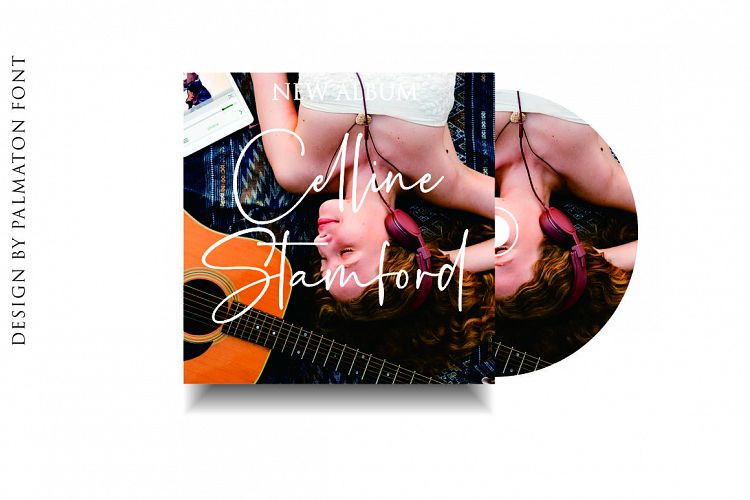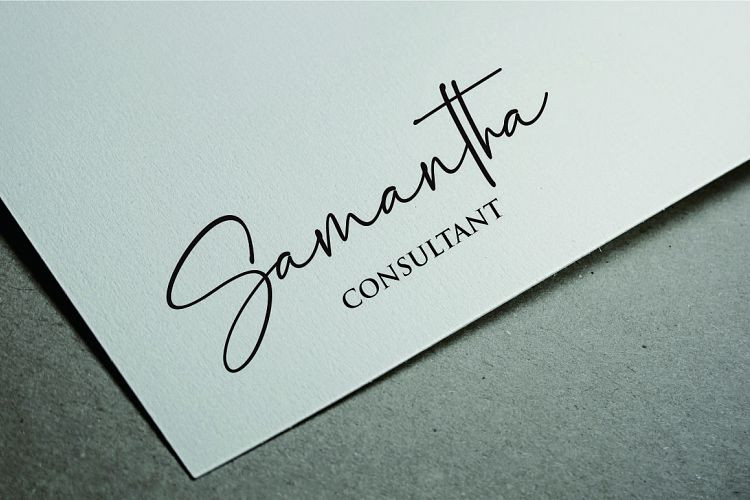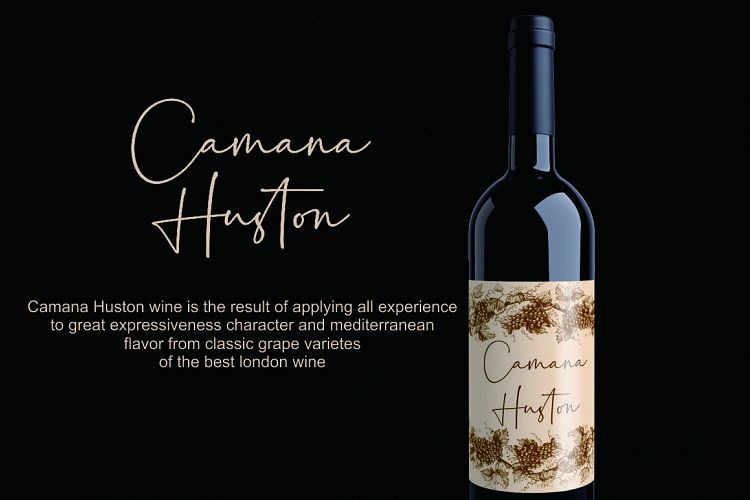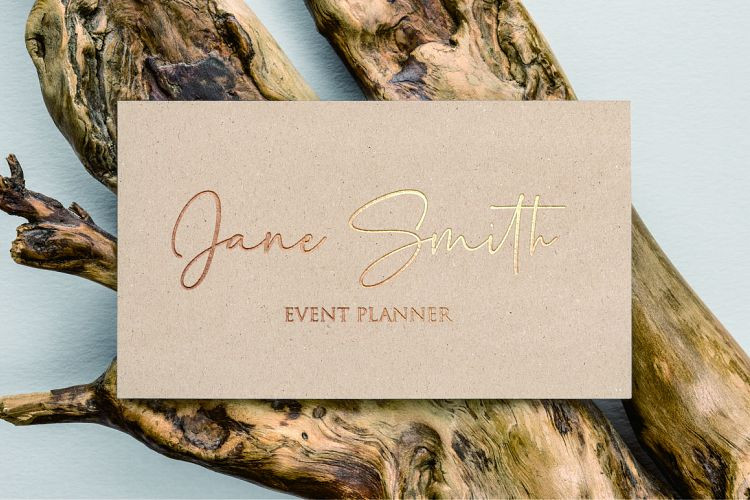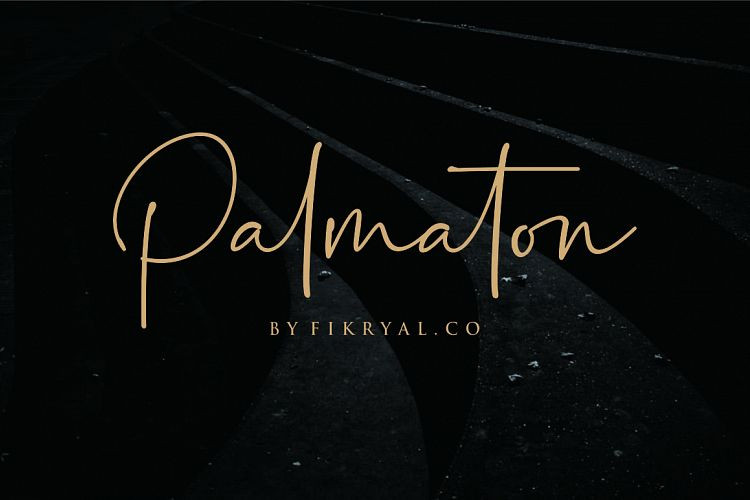
Palmaton Handwritten Font
Hello guys. the handwritten signature font. It’s look natural and real writing by yourself, that give an authentication for every need. Introducing Palmaton Font. It’s designed and shared by fikryal. Palmaton – Handwritten Font is a new modern & stylish handwritten font. I’ts Perfect for logo,branding, invitation, tittle, wedding designs, social media posts, advertisements, product packaging, product designs, label, photography, watermark, special event,magazine,web design,etc.